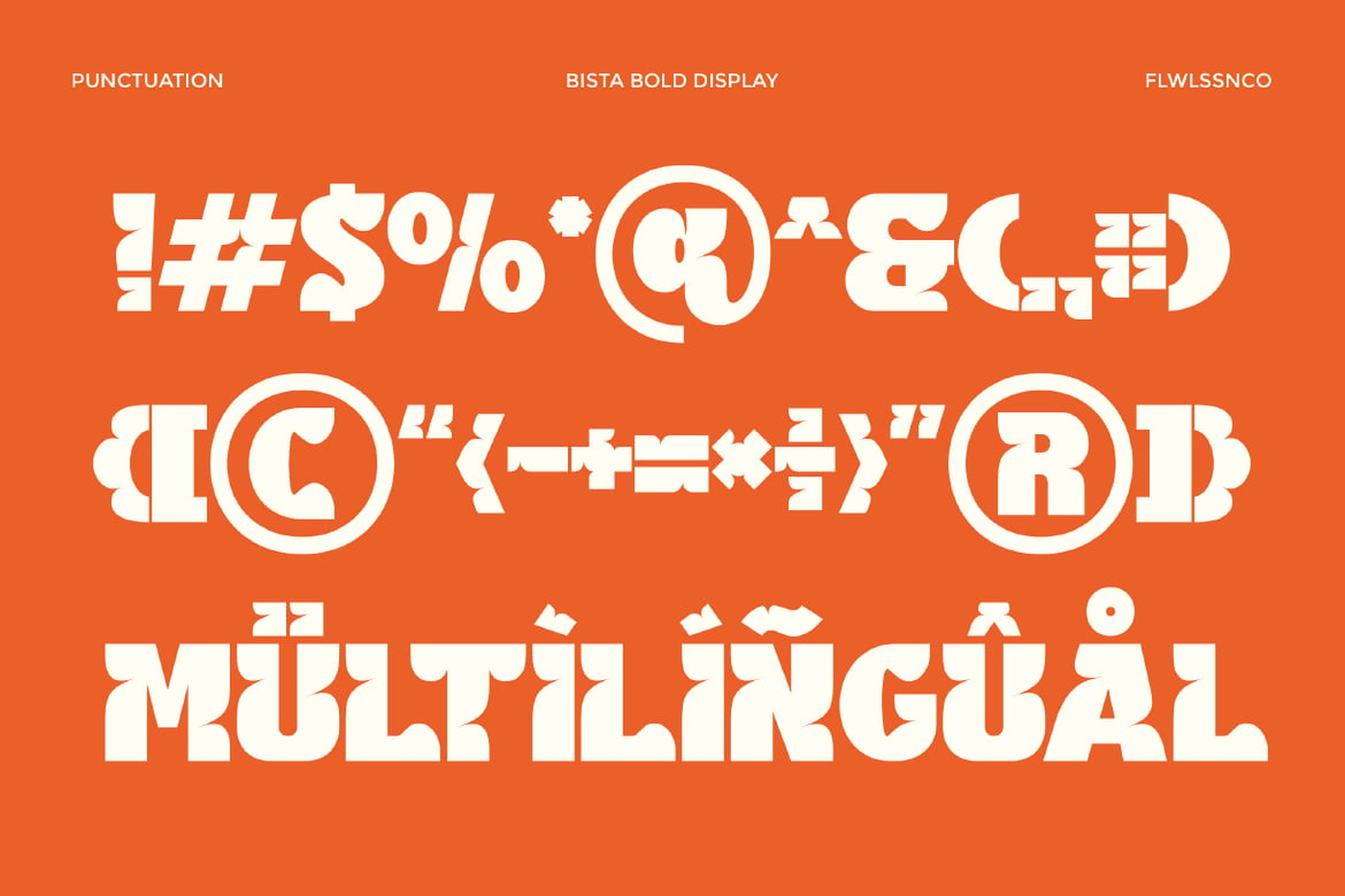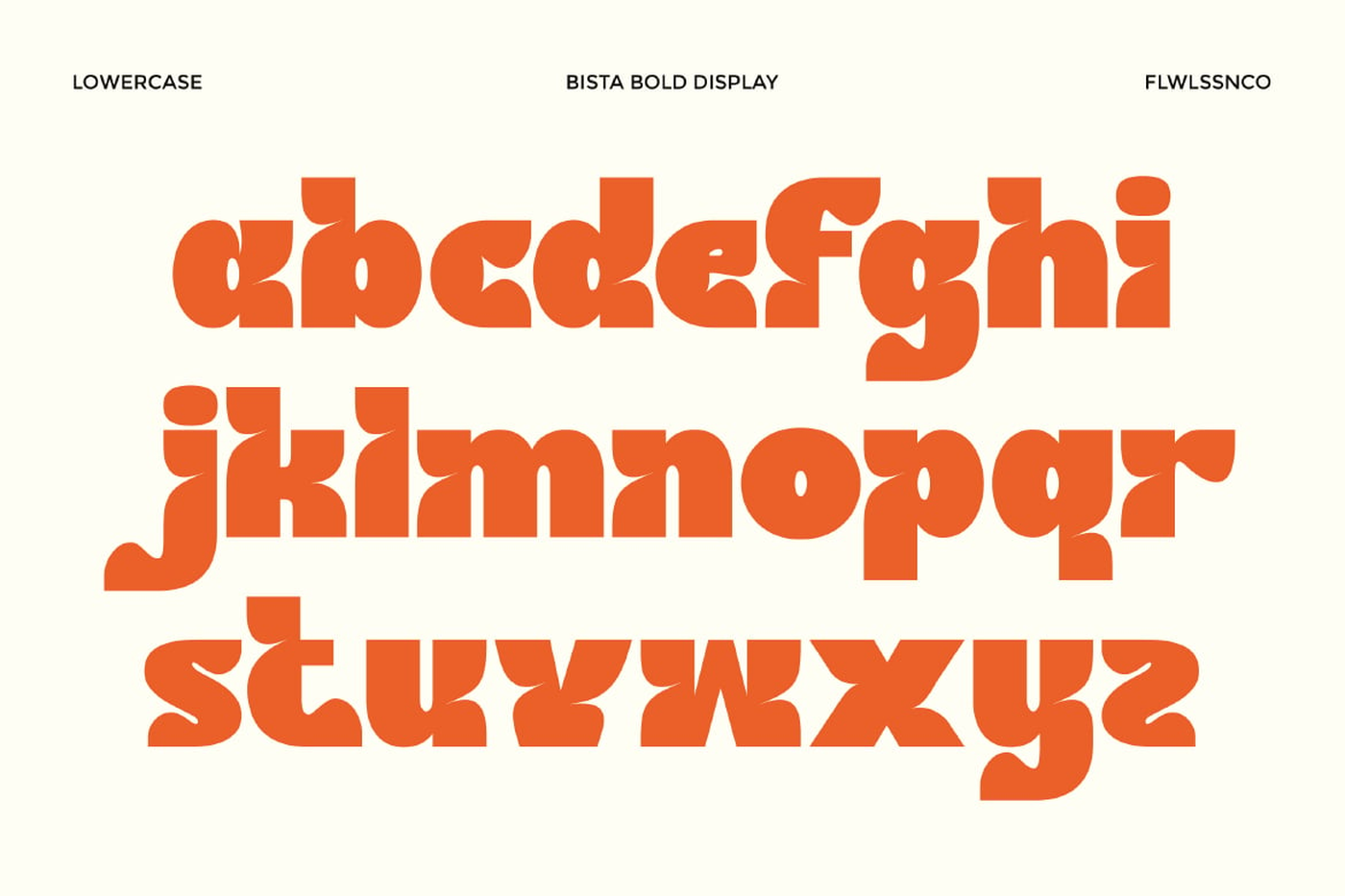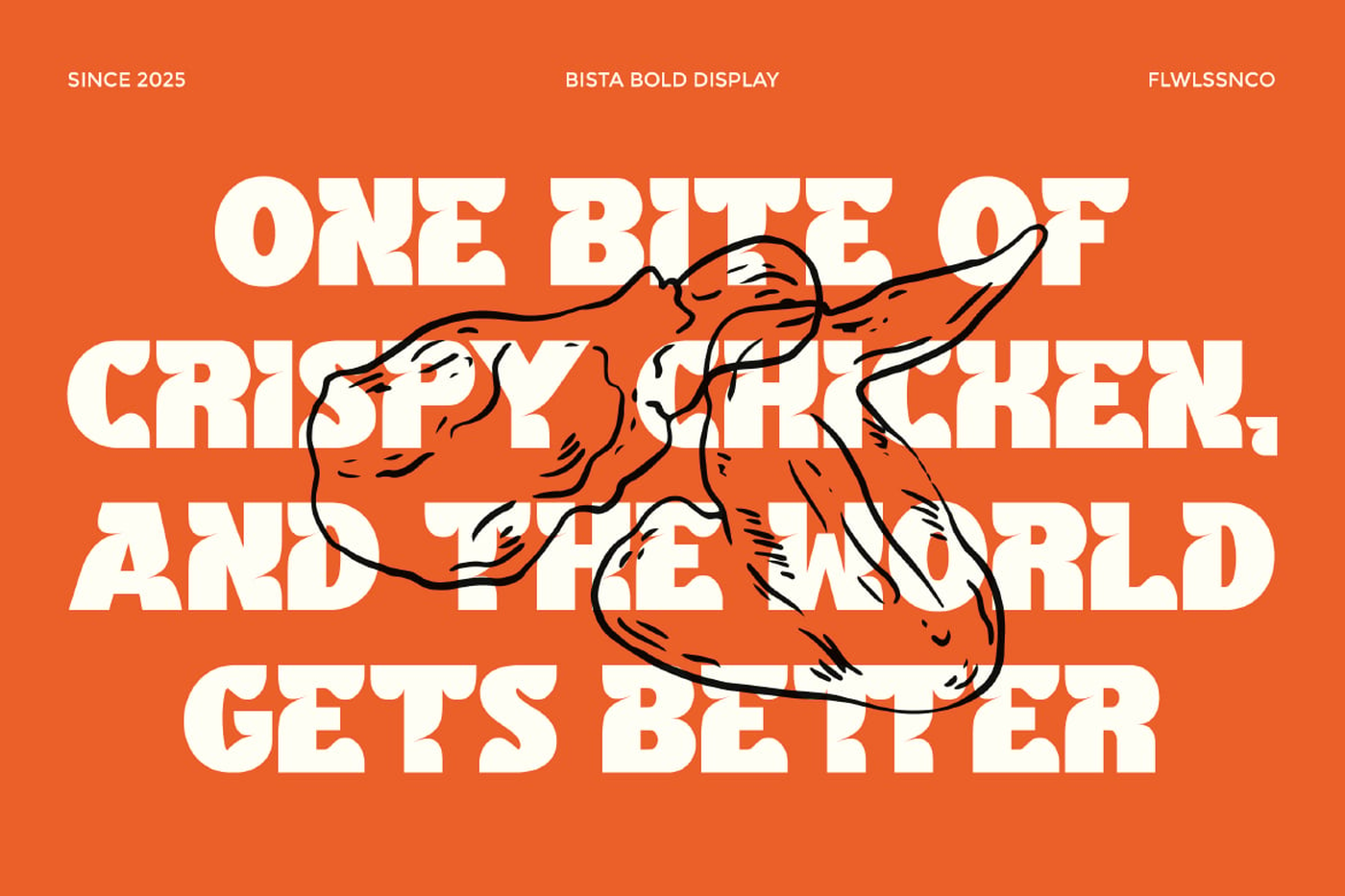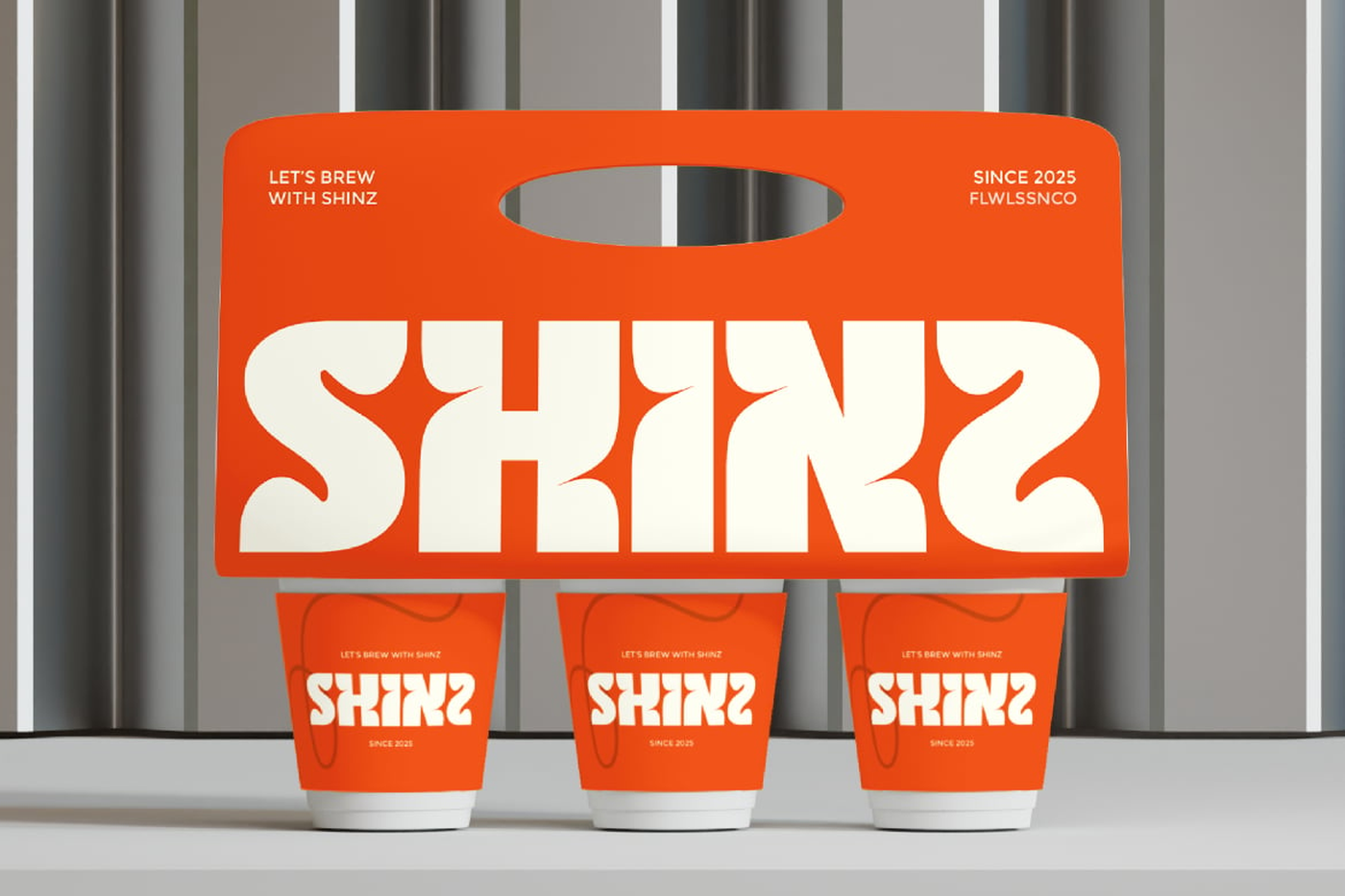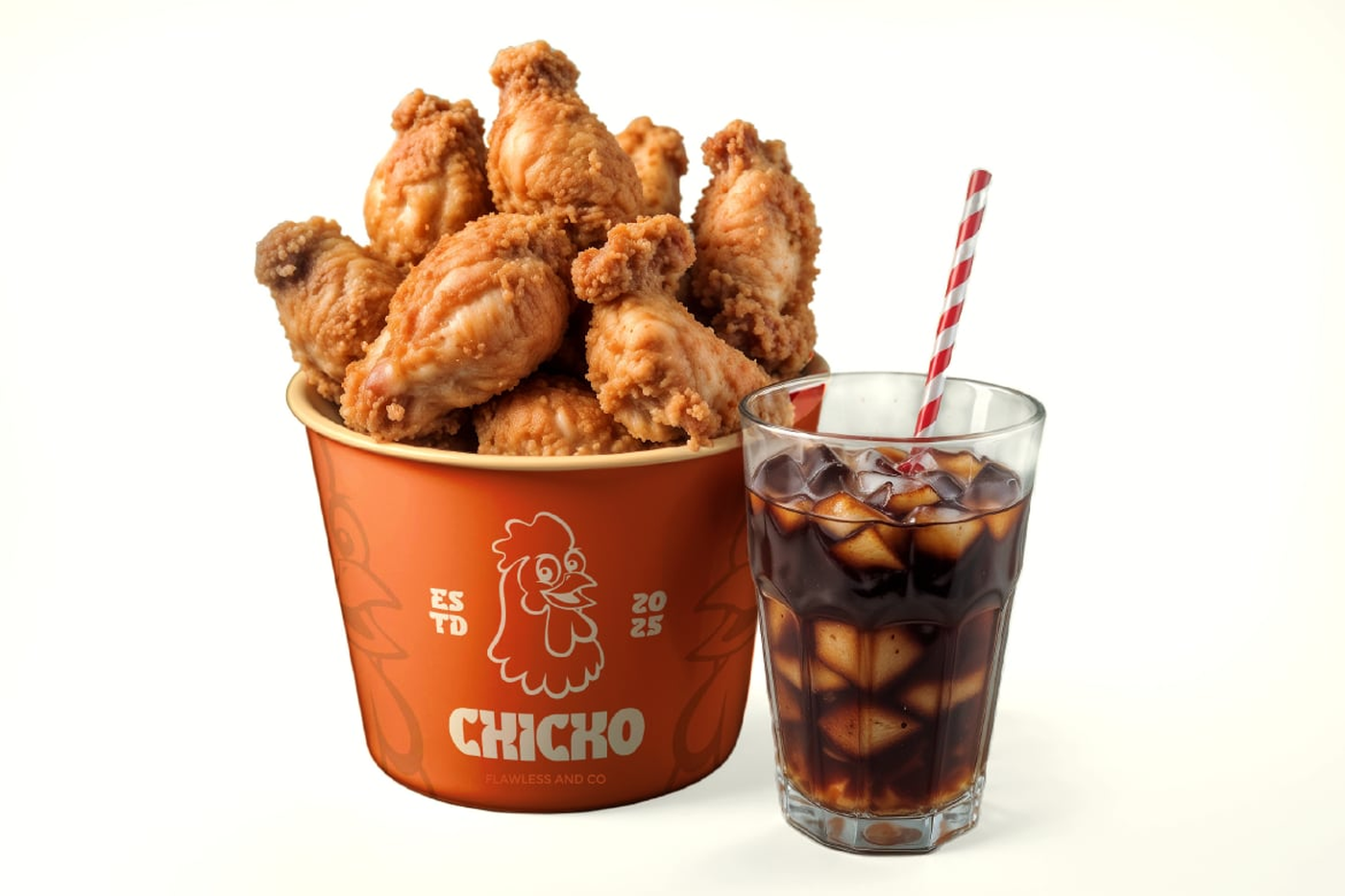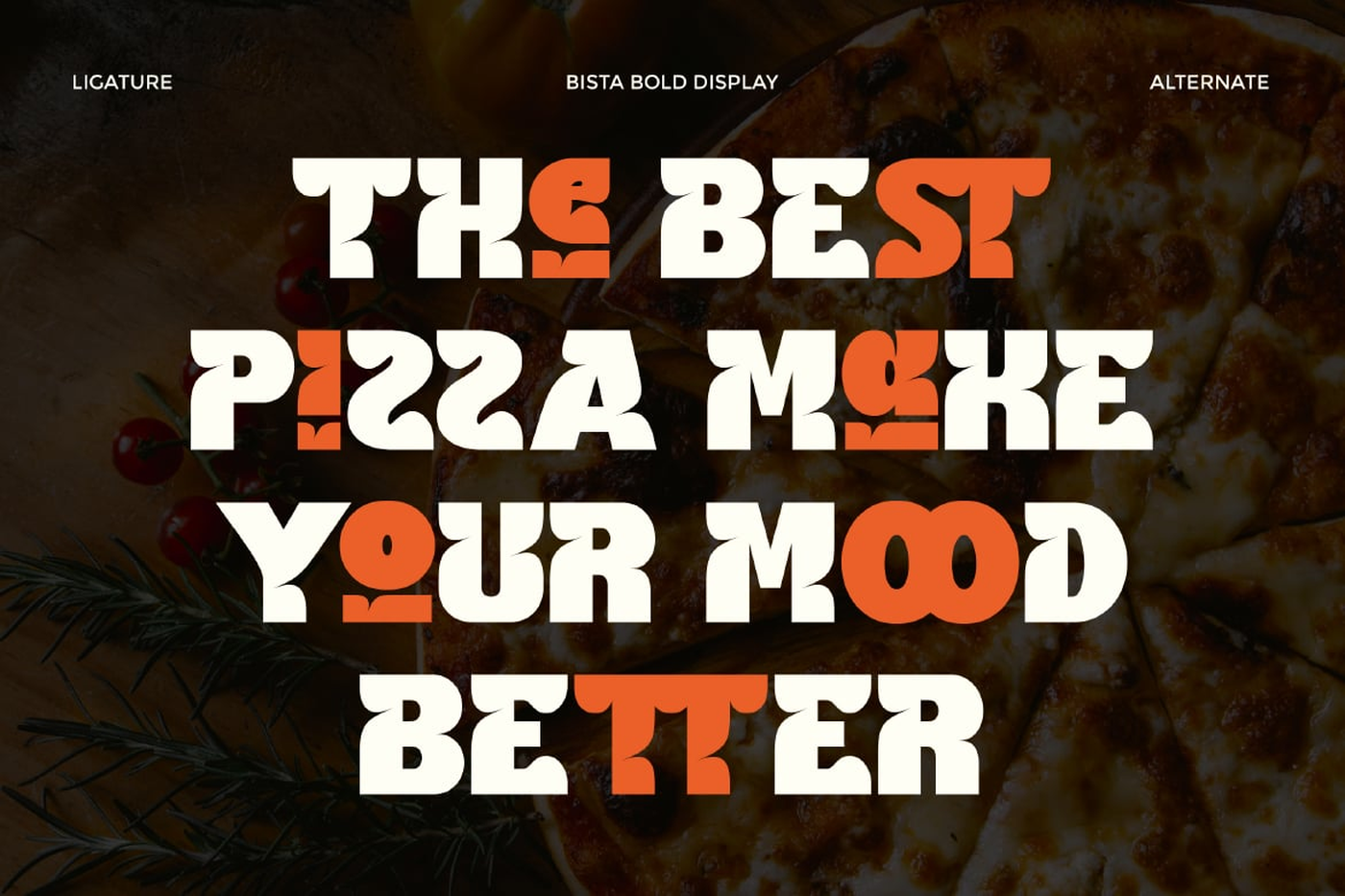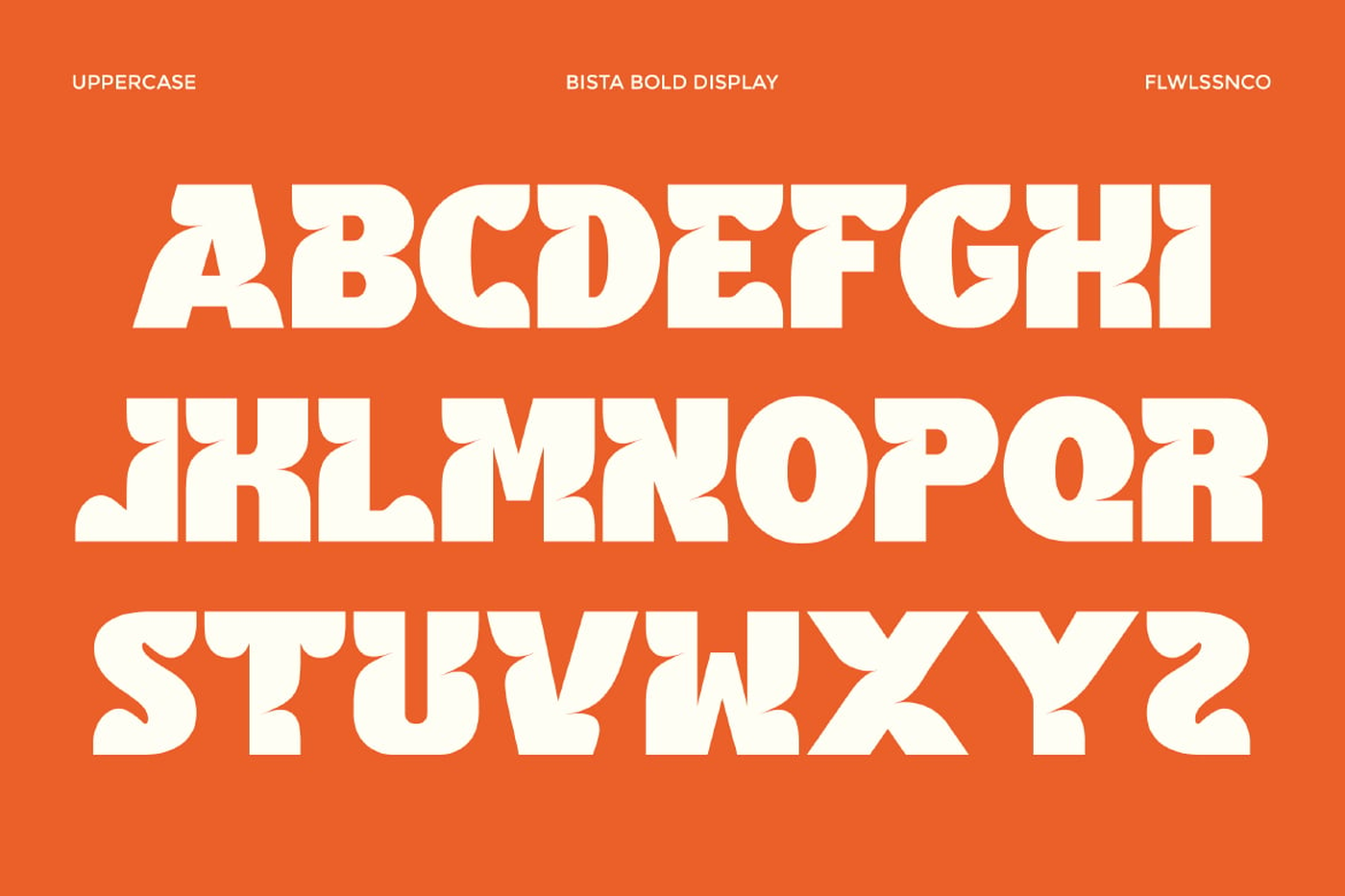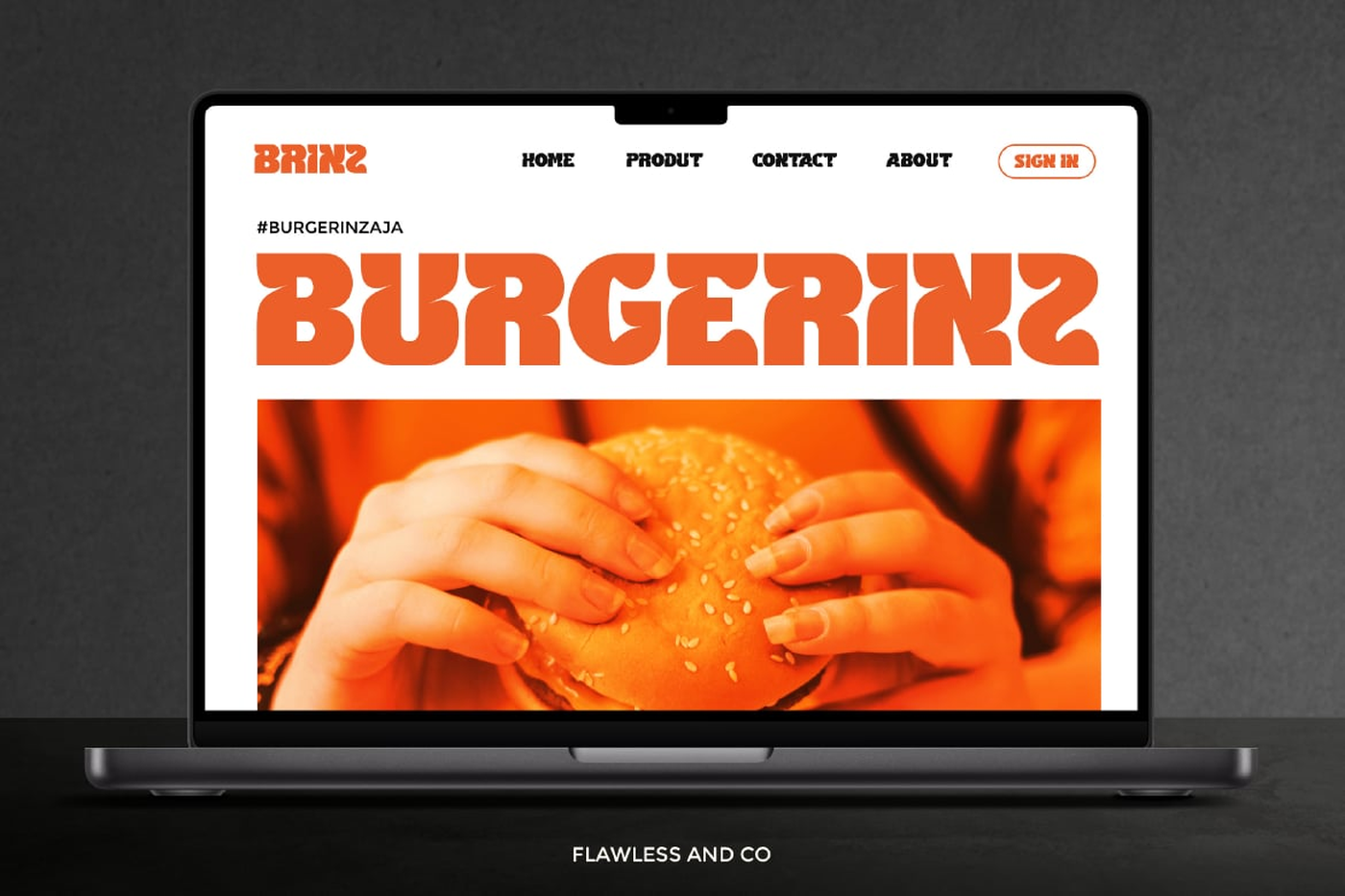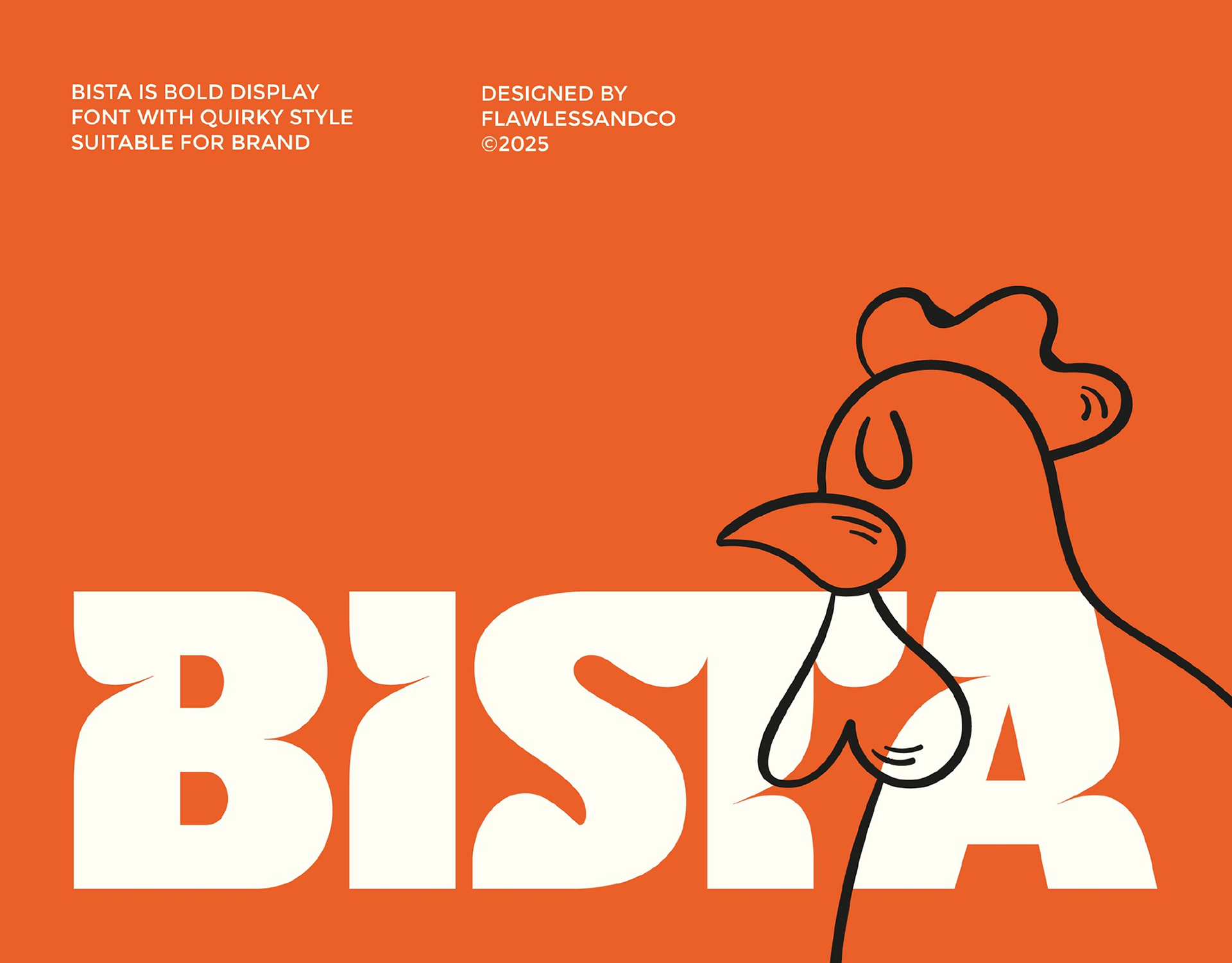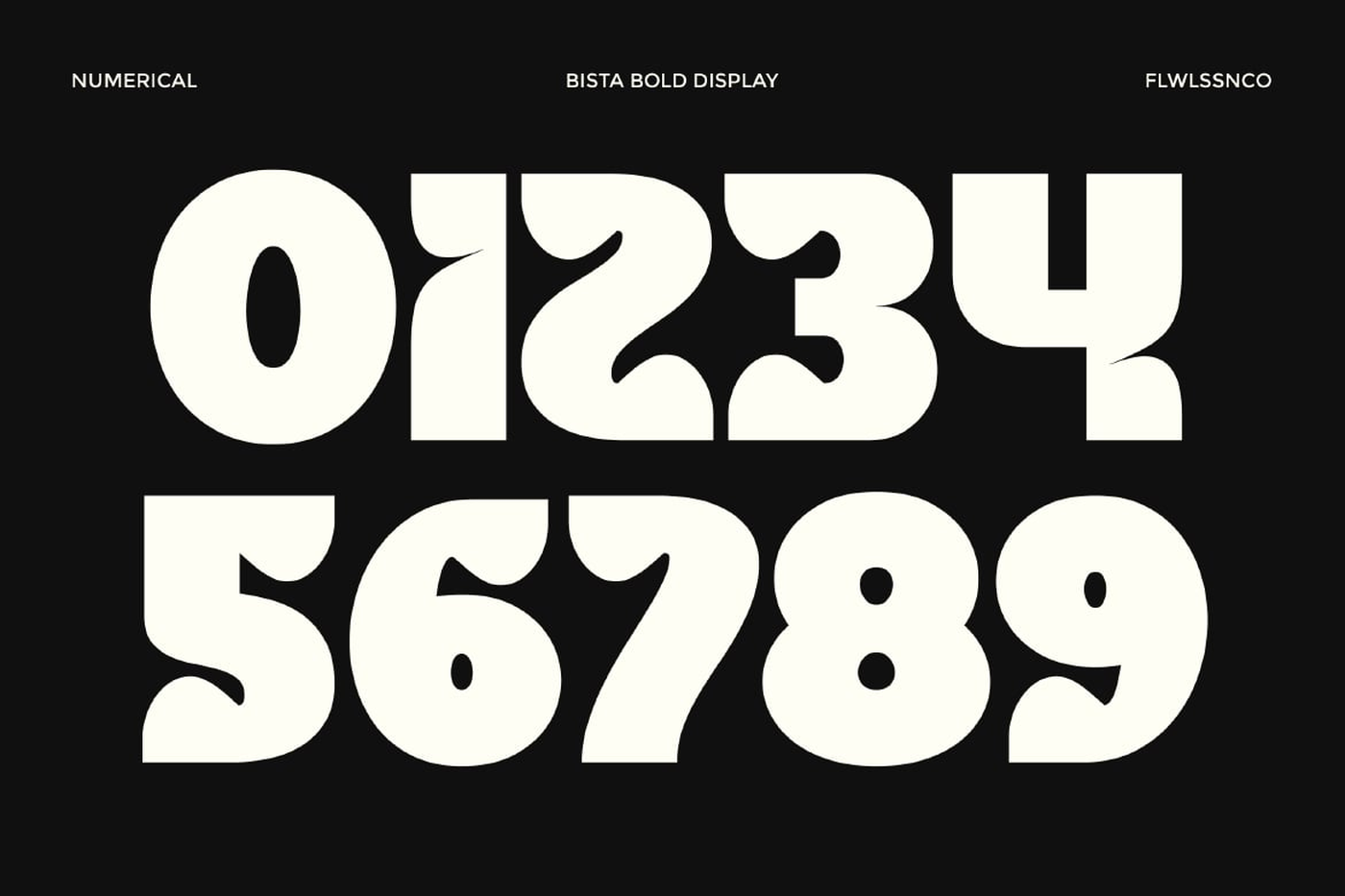
Bista - Bold Display Font
Bista is a bold display font with a playful quirky personality, designed to bring instant character to any project. With its chunky shapes, smooth curves, and unique letterforms, Bista delivers a fresh and friendly aesthetic that stands out effortlessly. This typeface is perfect for brands that want to look fun, expressive, and memorable—especially in creative industries that value bold visual identity. Whether used for packaging, logos, posters, or mascot-based branding, Bista adds a joyful touch that captures attention in just one glance.
Designer: Flawless And Co
Font: Bista